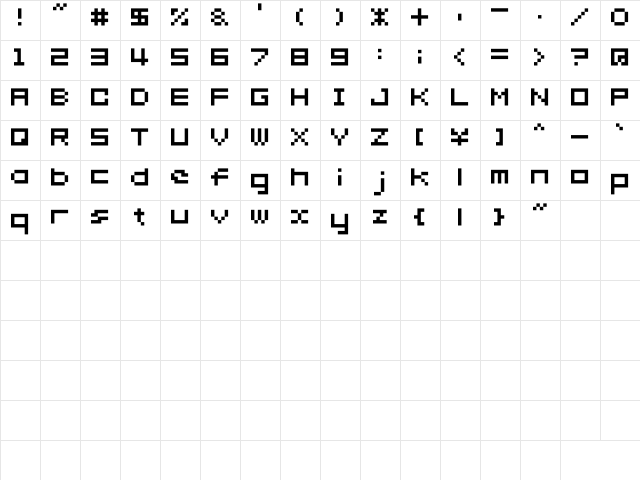
somybmp02_7 Regular Font Preview
somybmp02_7 Regular
Design Context for somybmp02_7 Typeface
somybmp02_7 takes a measured approach to typography — its balanced proportions and neutral character make it a reliable workhorse for both digital and print work.